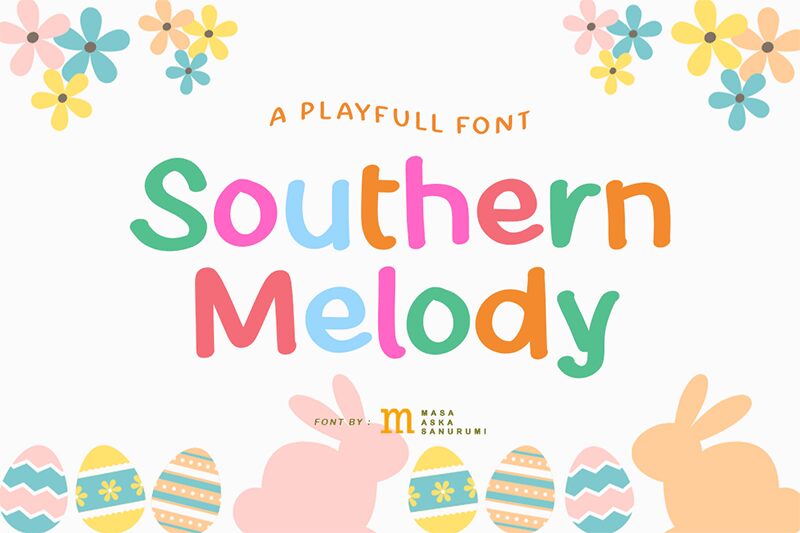
Southern Melody, crafted by the talented Masa Aska Sanurumi, is a handwritten font that exudes charm and approachability. With each stroke carrying a sense of warmth and whimsy, this font captures the essence of personal touch in digital design.
Ideal for an array of creative endeavors, Southern Melody shines in uses as varied as heartfelt greeting cards to engaging headlines, ensuring your project resonates with a playful and inviting vibe. Its versatility not only makes it a go-to for designers seeking to infuse personality into their work but also ensures that Southern Melody stands out as a delightful addition to any typographic portfolio.